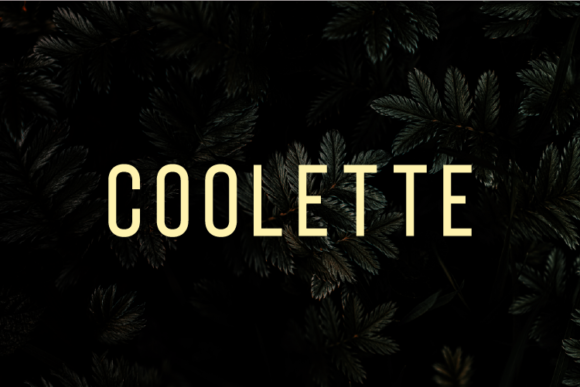
**Introducing Coolette Font, the Perfect Choice for Kids' Shirts**
Are you searching for the ideal font that will uplift your kids' shirts, making them burst with personality and charm? Look no further than Coolette Font, a captivating sans-serif typeface designed to bring a touch of magic to your little one's wardrobe.
**A Symphony of Simplicity and Sophistication**
Coolette Font effortlessly combines the beauty of simplicity with a touch of elegance. Its clean lines and uncluttered design create an enchanting harmony that will captivate imaginations and leave a lasting impression. Whether it's a playful message or a heartwarming quote, Coolette Font will elegantly adorn your kids' shirts, making each piece a true masterpiece.
**Designed with Kids in Mind**
Crafted by A Christie, Coolette Font understands the whimsical and vibrant spirit of children. Its playful nature dances across each letter, evoking a sense of joy and wonder that will resonate with your little ones. Whether it's a favorite animal, a cherished toy, or a beloved superhero, Coolette Font will transform their shirts into canvases where their imaginations can soar.
**A Font for Every Occasion**
Coolette Font is an incredibly versatile typeface that adapts seamlessly to any style or occasion. From casual everyday wear to special events, this font will add a touch of magic to every moment. Watch as your kids' eyes light up when they see their names, favorite words, or inspiring messages emblazoned on their shirts in the enchanting Coolette Font.
**Effortless Customization**
With Coolette Font, unleashing your creativity is effortless. Its user-friendly nature makes customizing your kids' shirts a breeze. Whether you prefer bold statements or subtle whispers, this font will effortlessly conform to your vision, allowing you to create truly unique and unforgettable pieces.
**Spread Joy, Inspire Dreams**
Coolette Font is more than just a typeface; it's a tool for spreading joy and igniting dreams. With every shirt adorned in this enchanting font, you're gifting your kids a piece of magic that will accompany them on all their adventures. Let Coolette Font be the soundtrack to their laughter, the rhythm to their dreams, and the foundation for a wardrobe filled with cherished memories.